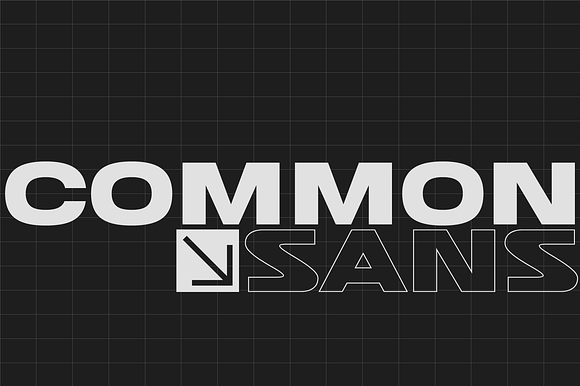
Common Sans Wide Display Font
Common Sans Wide Display Font by graphlab is a font selected for branding, posters, packaging, typography.
Why Common Sans Wide Display Font is worth a look
Common Sans Wide Display Font by graphlab fits naturally into Branding, posters, packaging, typography.